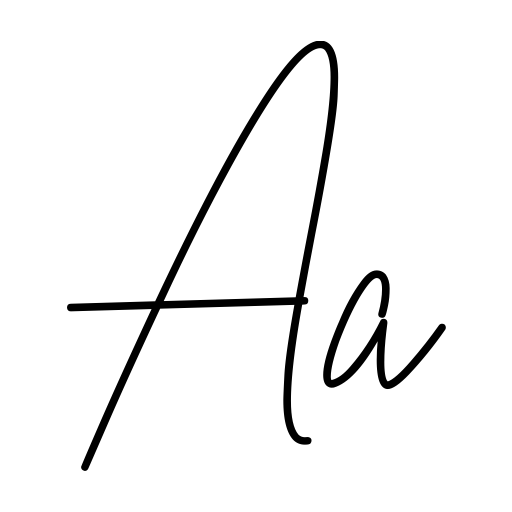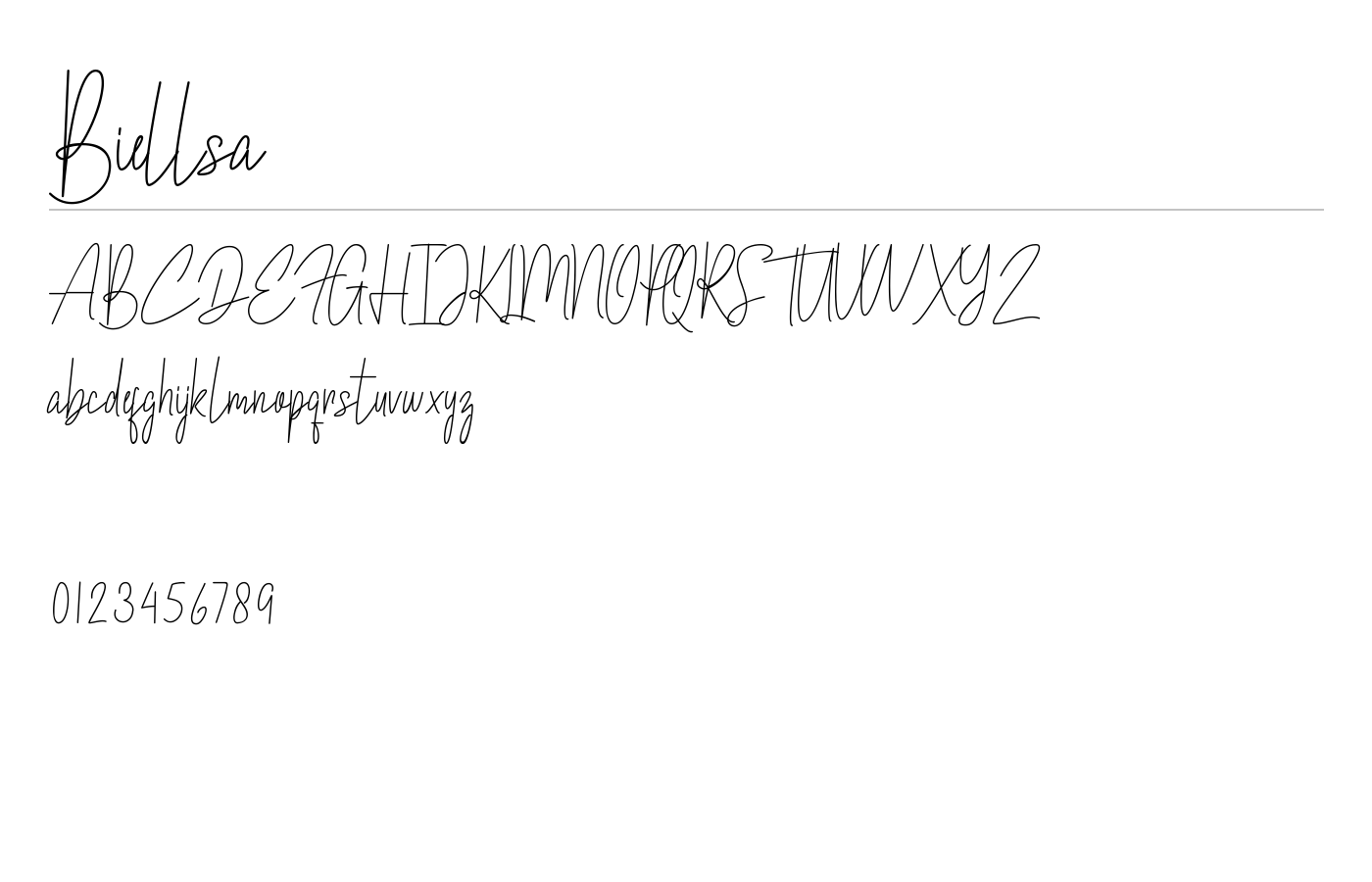
Biellsa is a delicate, handwritten script font featuring tall, narrow letterforms with a graceful, airy feel. Its thin strokes and elegant flow give it a sophisticated yet casual personality, making it perfect for stylish branding, invitations, and editorial designs that seek a personal, artistic touch. This font works best for headlines or decorative text where an intimate and refined atmosphere is desired.
Biellsa Font
About Biellsa Font